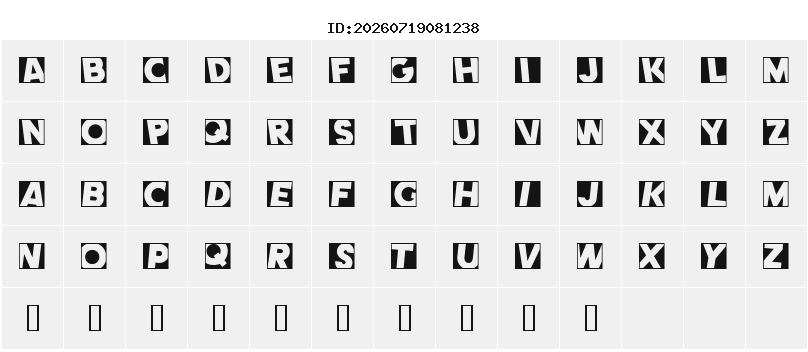
Comet Preview
• Font Name: Comet
• Font Style: Negative
• Font ID: Macromedia Fontographer 4.1.3 Comet Negative
• Full Font Name: Comet Negative
• Version: Macromedia Fontographer 4.1.3 2/8/00
• PostScript Name: CometNegative
• Character Count: 58
About Comet.ttf
Comet.ttf is a modern, elegant sans-serif font designed for ultimate readability and visual harmony. Perfect for branding, headlines, web design, and print materials.